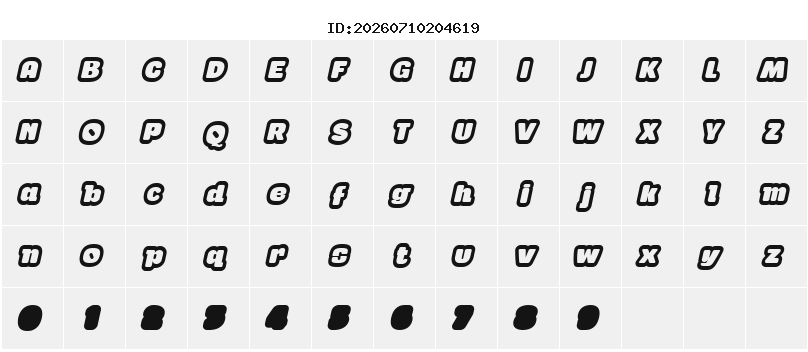
Gaban Preview
• Font Name: Gaban
• Designer: Fernando Haro
• Description: Gaban Italic is a very thick, round display typeface with square proportions designed in continuous outline by deFharo from Spain. Perfect for titles in editorial design and advertising.
Gaban.ttf is a modern, elegant sans-serif font designed for ultimate readability and visual harmony. Perfect for branding, headlines, web design, and print materials.